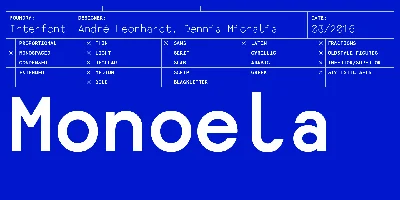
Monoela Font
Monoela Font is ideal for tech startup branding, coding interface design, digital product packaging, modern software documentation, contemporary logo creation, minimalist poster designs, clean web typography, programming tutorial materials, digital agency branding, and sleek mobile app interfaces.
What makes Monoela Font exciting is its perfect balance of technical precision and modern elegance that delivers exceptional readability across all digital platforms. This sophisticated monospace typeface features uniform character spacing with refined letterforms that maintain clarity at any size while projecting contemporary professionalism. The font's clean geometry and consistent spacing make it essential for technical applications requiring both functionality and aesthetic appeal in modern digital environments.
The Monoela Font family includes comprehensive monospace variations: Regular, Bold, Light, Medium, Italic, and Code versions. Each style maintains the core monospace functionality while providing different levels of weight and emphasis. The complete family offers developers and designers versatile tools for creating cohesive, professional visual communications across technical documentation, user interfaces, and brand identity systems.
When your project demands technical precision with modern style, Monoela Font is the perfect solution. This exceptional monospace typeface elevates code readability and digital communications with its clean, professional appearance. Its versatility makes it indispensable for both technical applications and contemporary branding projects. Download Monoela Font today and enhance your digital projects with this remarkable typeface that perfectly combines monospace functionality with contemporary design sophistication and technical excellence.